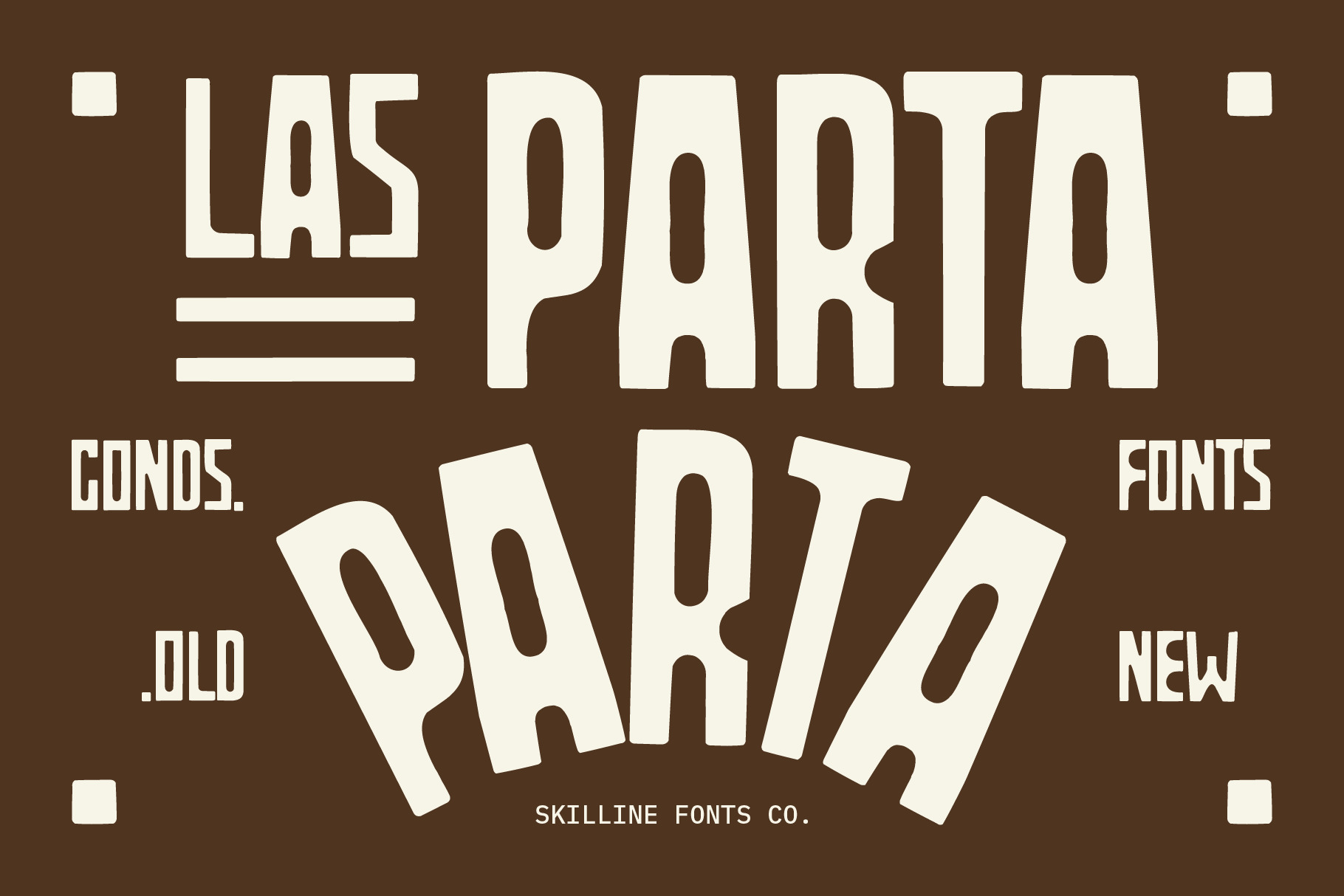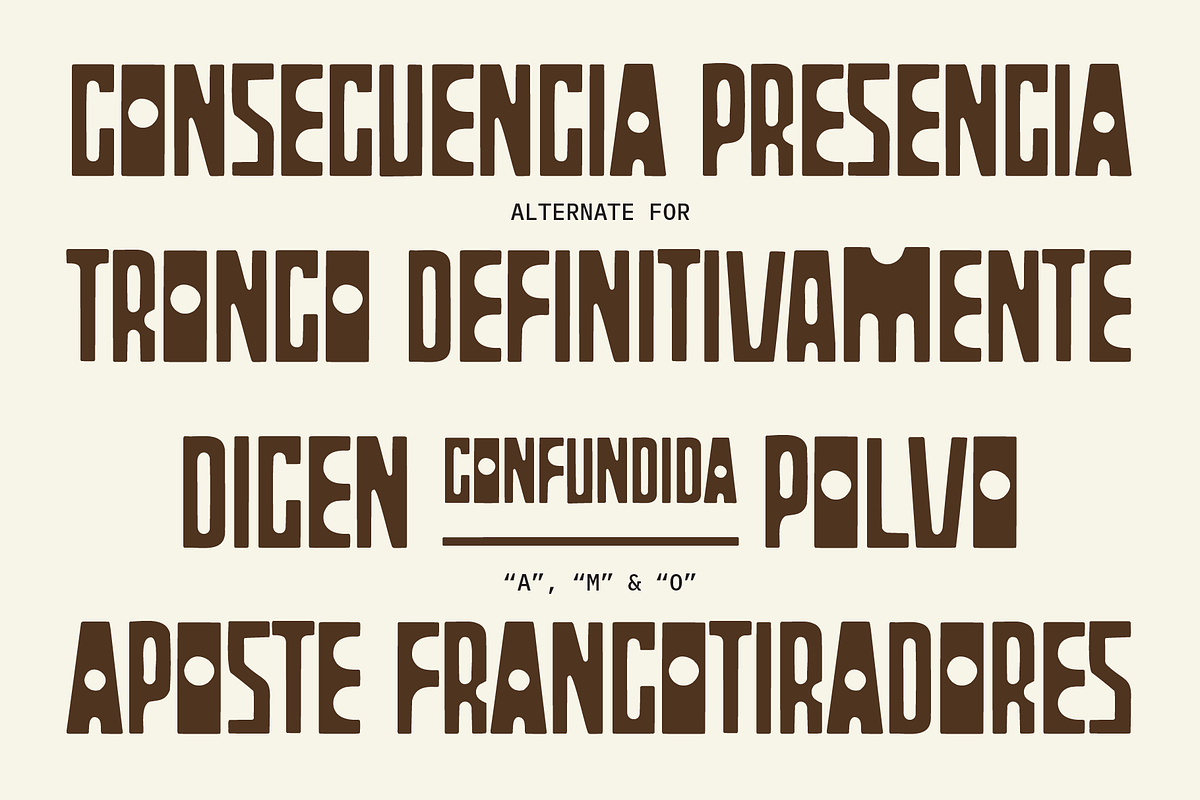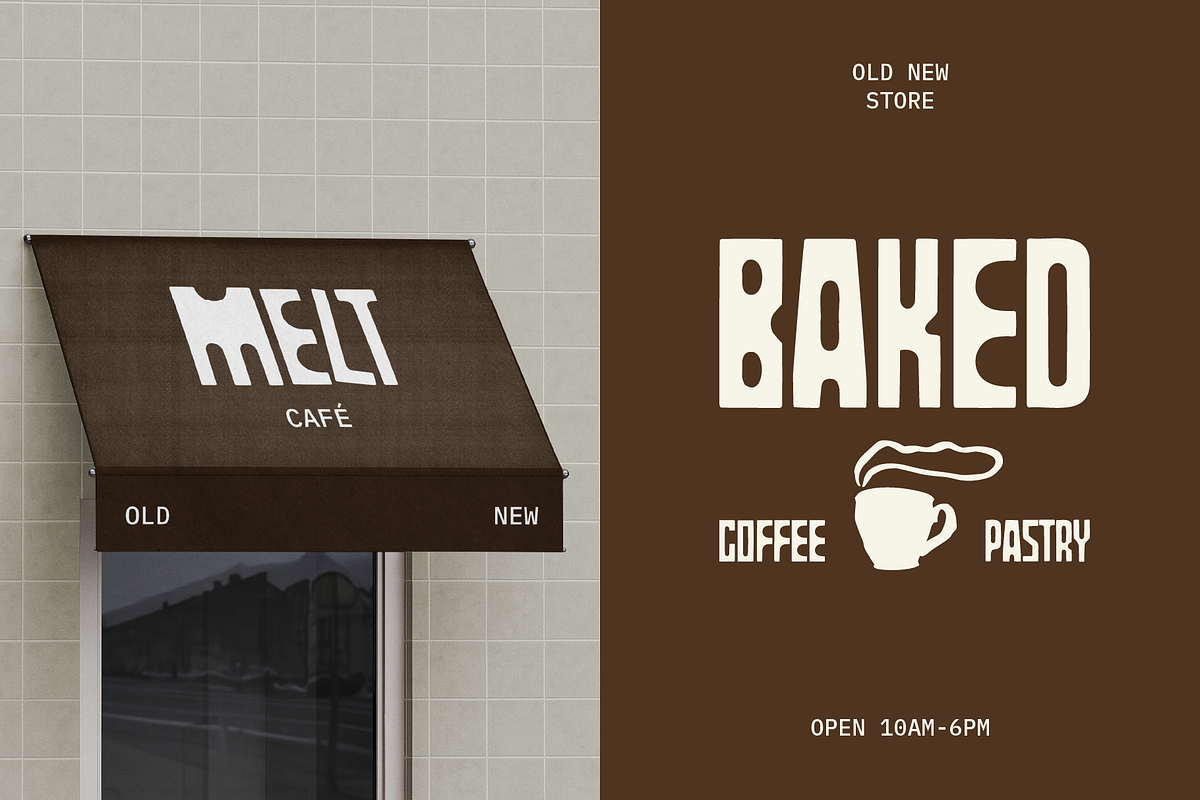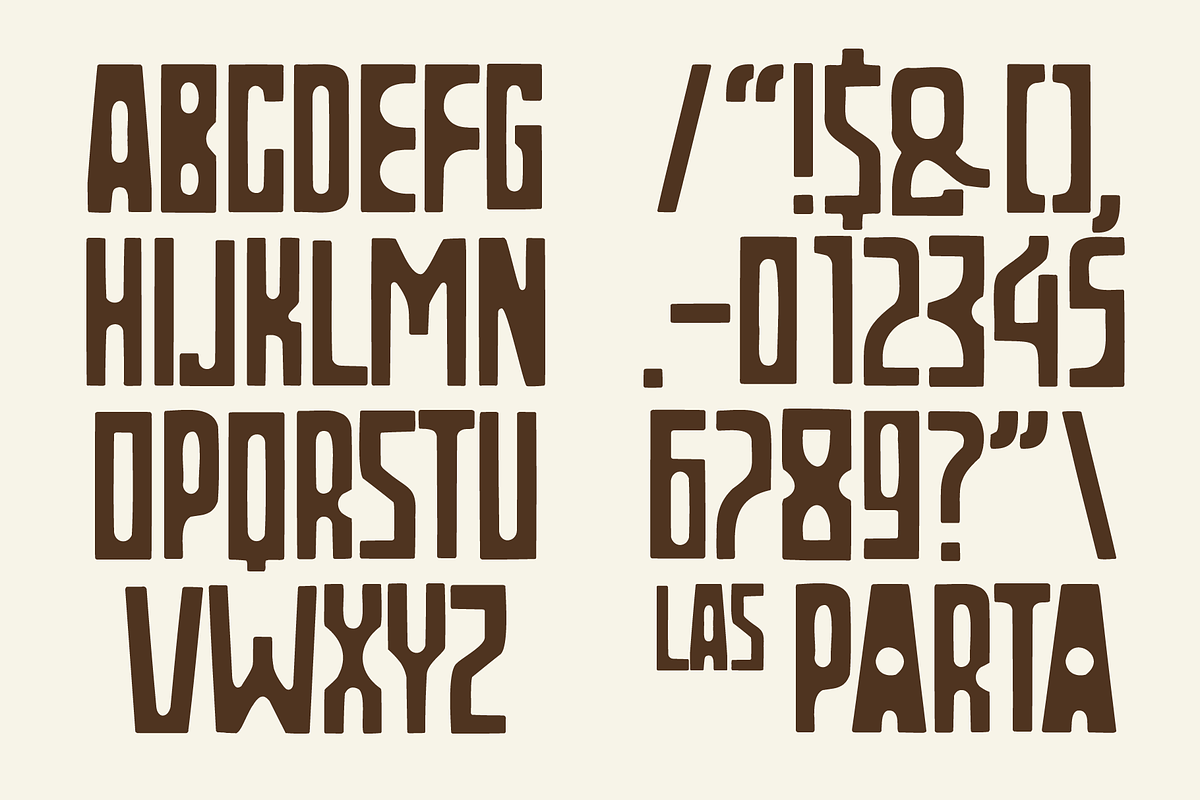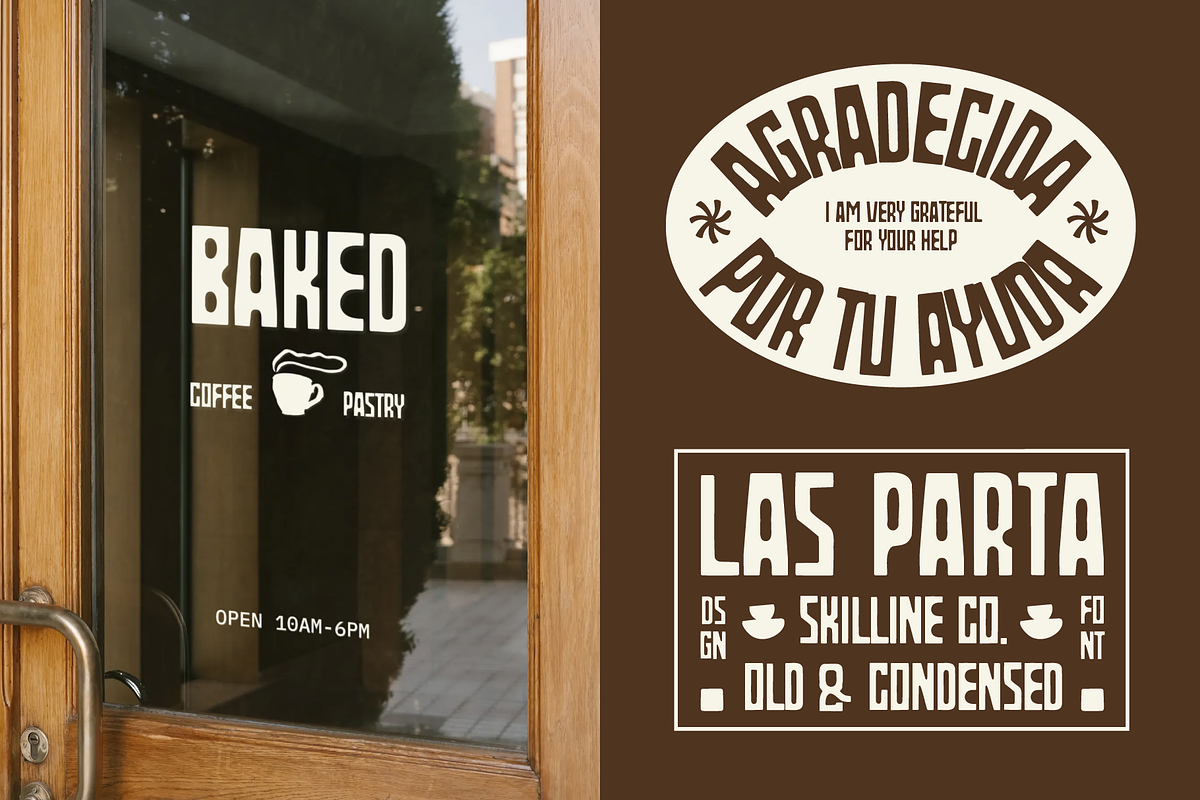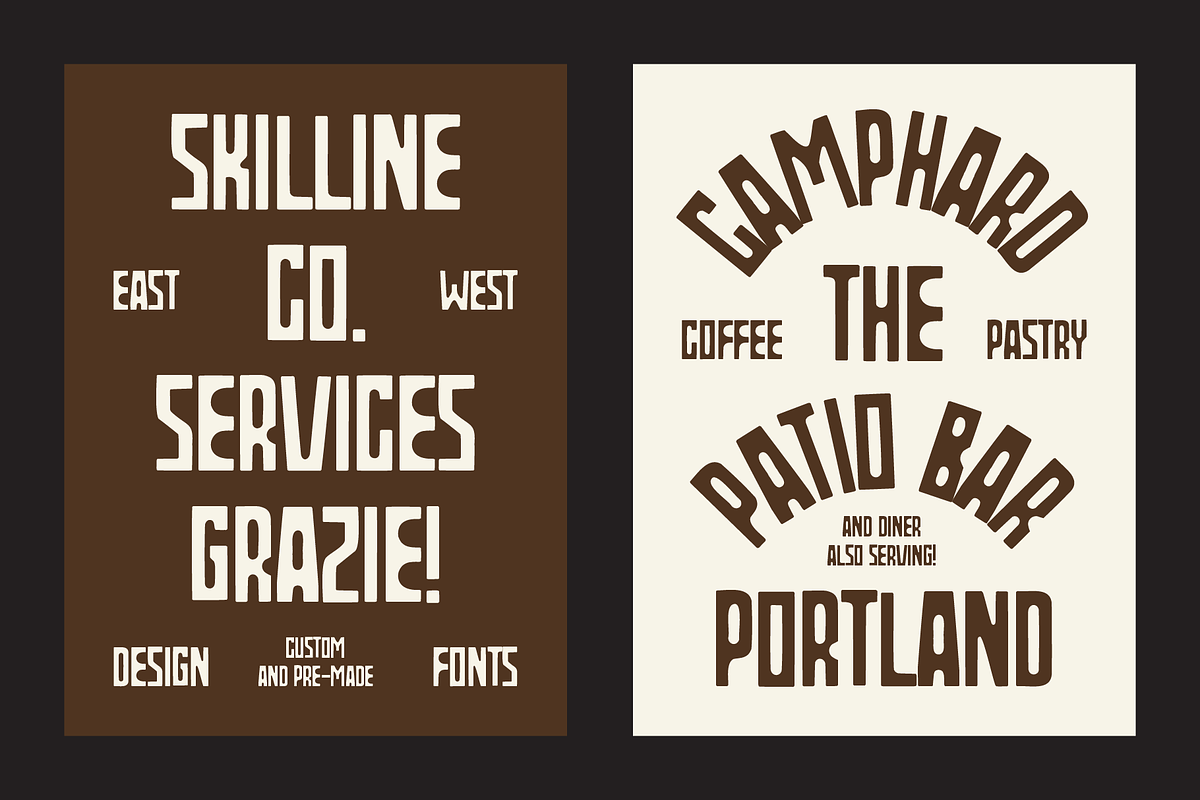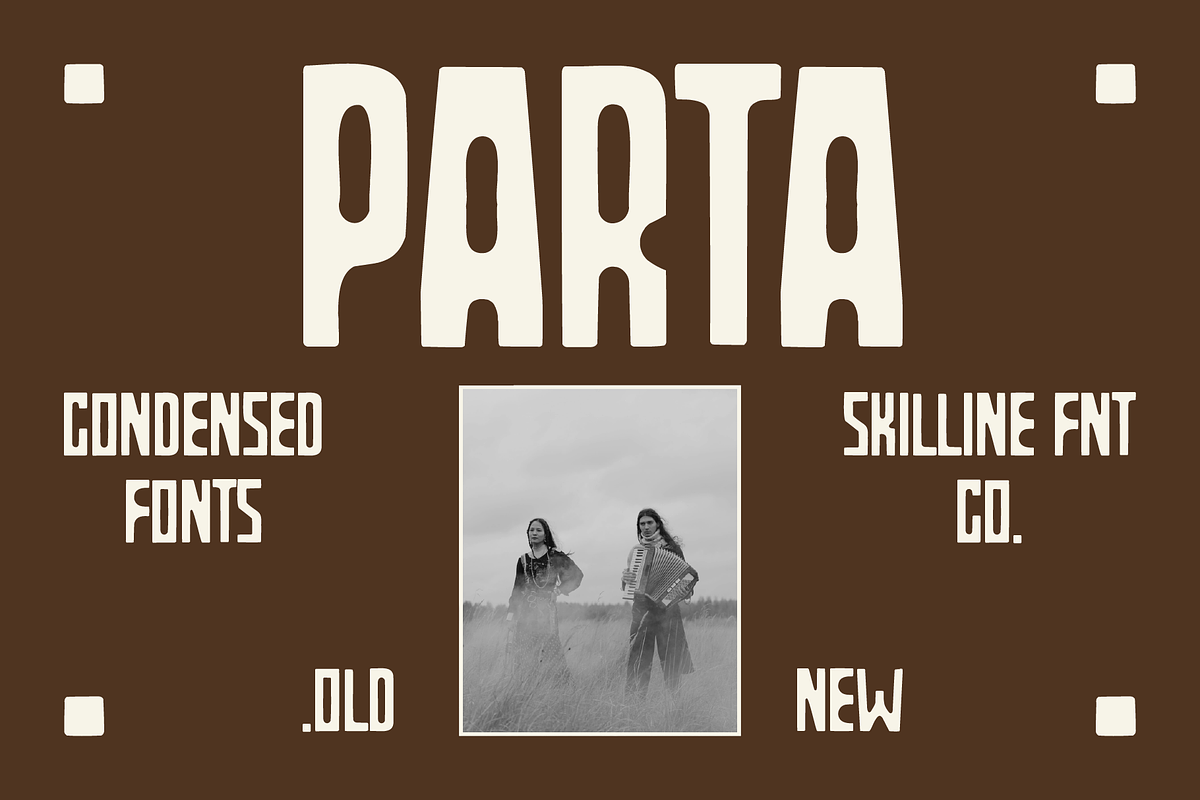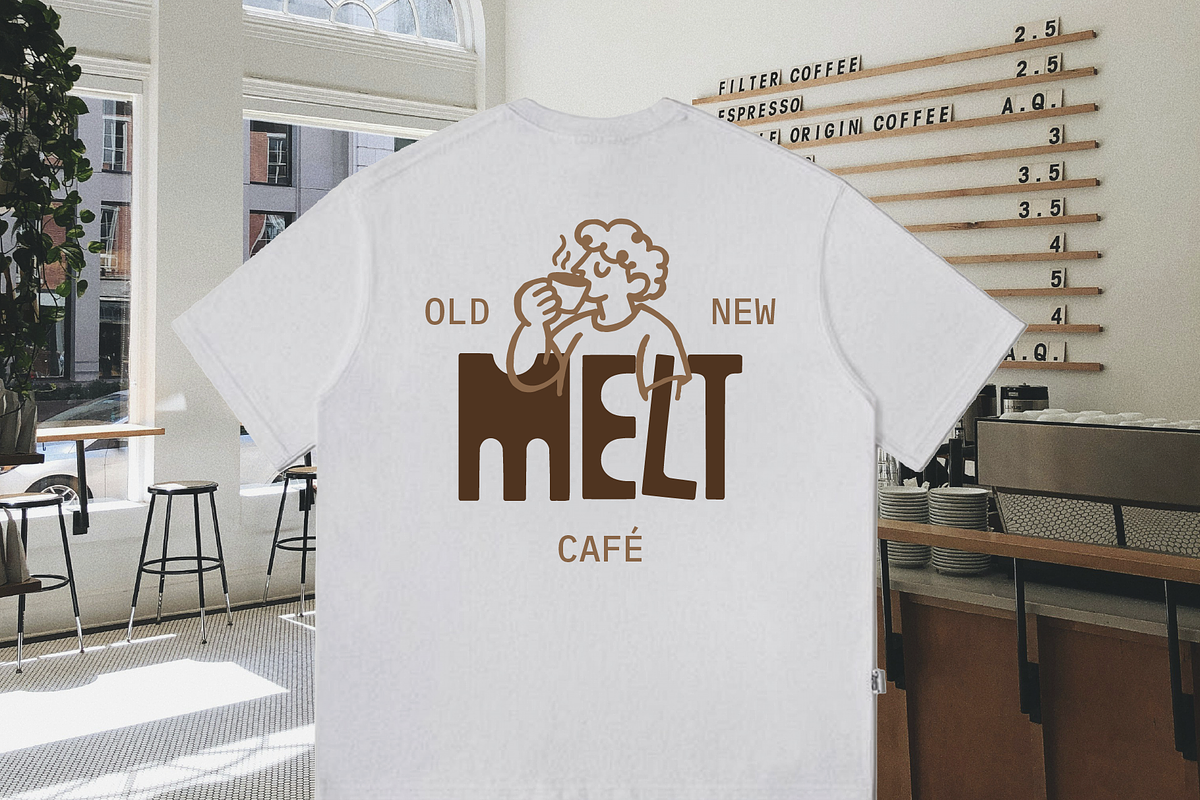
SFC LAS PARTA - Tall Display Font
Las Parta is a bold, condensed display typeface with a distinctive handcrafted character.
Inspired by expressive vintage signage and old-school display lettering, Las Parta combines strong condensed proportions, unusual letterforms, subtle irregularities, and playful alternate characters to create typography with a bold and recognizable personality.
The letterforms feature unexpected cuts, curves, and structural details that give Las Parta an imperfect yet carefully crafted appearance. Alternate characters allow you to mix and match different forms, creating more expressive compositions and custom-looking wordmarks.
Las Parta is made for projects that need a strong visual voice - from branding and logos to signage, posters, packaging, editorial design, café and restaurant identities, apparel graphics, and bold headlines.
Use the standard characters for a strong and compact look, or explore the alternates to create more distinctive typography and expressive display compositions.
Bold forms. Strange details. A little imperfect. Made to stand out.
Bold Condensed Display Typeface
Handcrafted Letterforms with Distinctive Details
Multilingual Latin Support